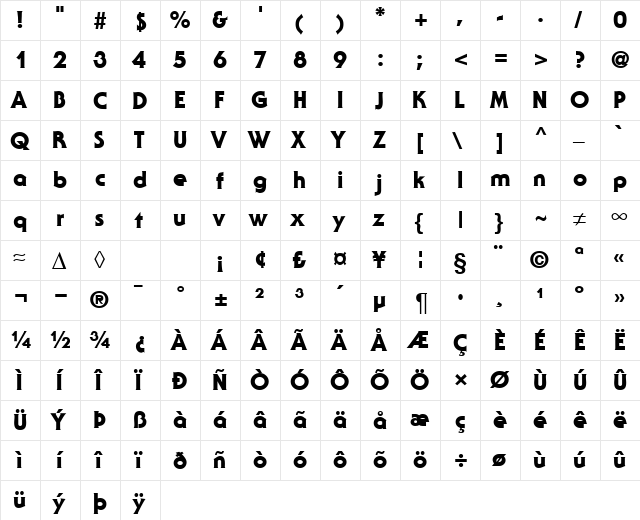
SerenadeTwoHeavy Regular
Design Context for SerenadeTwoHeavy Typeface
SerenadeTwoHeavy is a composed and adaptable typeface that performs quietly and consistently across a wide range of design contexts.